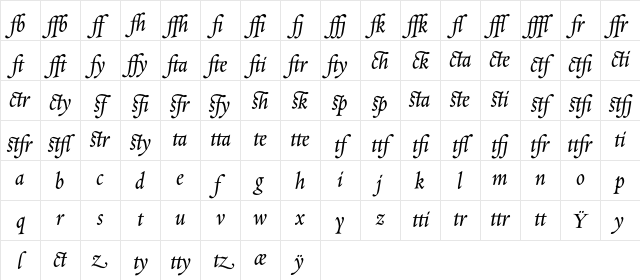
Requiem Text-HTF-ItalicLigs
Style: Text-HTF-ItalicLigs
Requiem Family
Design Context for Requiem
Requiem is a composed and adaptable typeface that performs quietly and consistently across a wide range of design contexts. The slanted form adds forward momentum and visual energy.